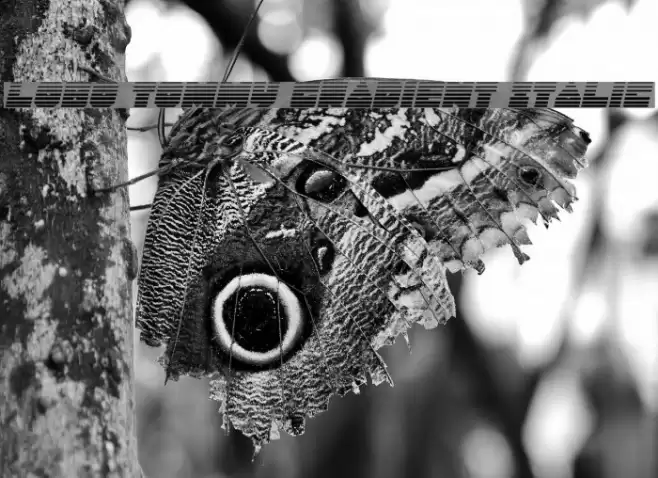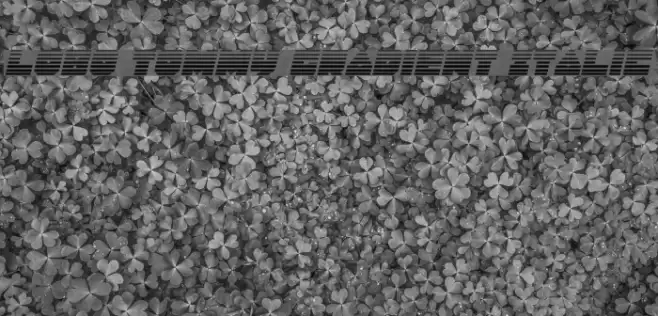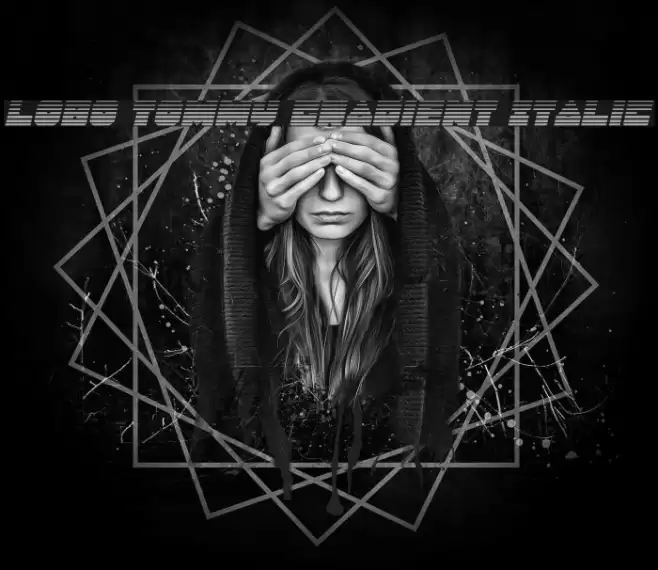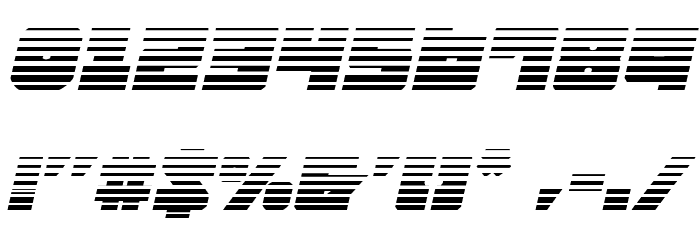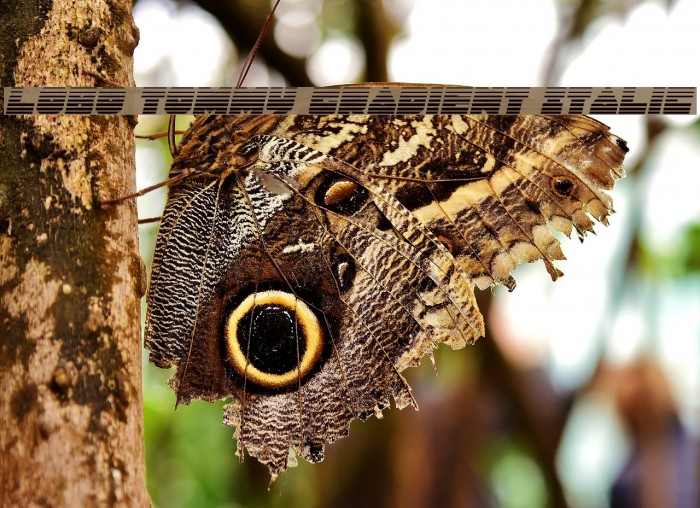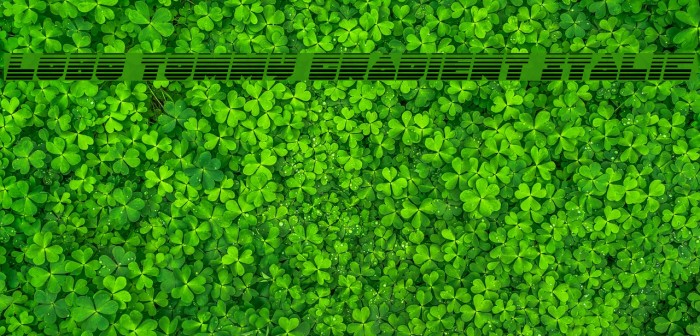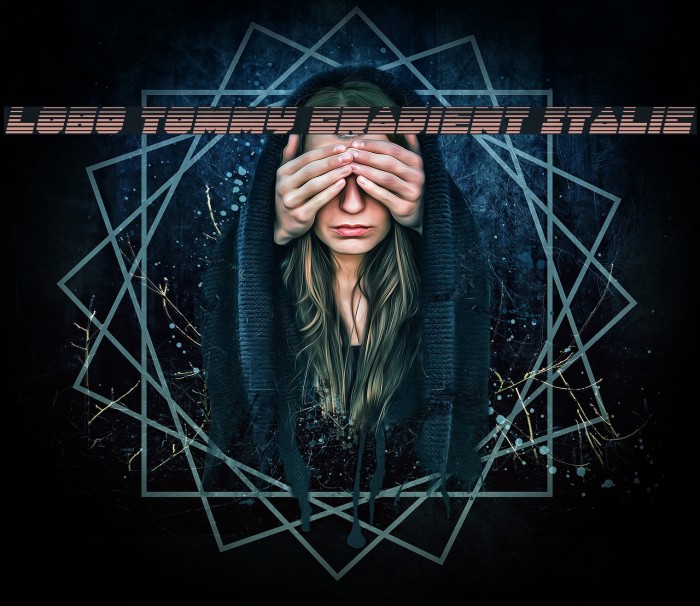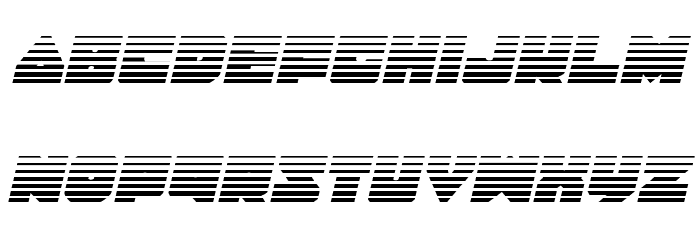
Lobo Tommy Gradient Italic Font
Lobo Tommy Gradient Italic Description
This font features a bold, italicized style with a distinctive gradient effect created by horizontal lines. Each character is composed of parallel lines that give it a dynamic, futuristic appearance. The uppercase and lowercase letters maintain a consistent slant, enhancing the italicized look. The numbers and special characters follow the same design, ensuring uniformity across all glyphs. The font's unique design makes it stand out, suitable for projects that require a modern and edgy aesthetic. The spacing between characters is tight, contributing to its compact and cohesive look.
A bold, italicized font with a gradient effect created by horizontal lines, offering a futuristic and dynamic style from Uncategorized fonts.
- Proposed Projects: Ideal for branding, posters, album covers, and any design project that seeks a modern, edgy look.
- Character Spacing: Tight